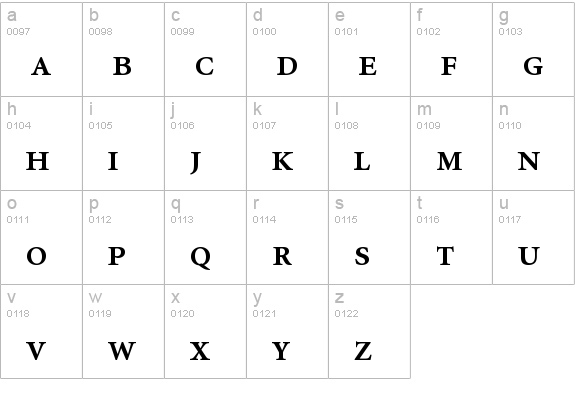
Minion Semibold Expert Font Details
Minion Semibold Expert is a sub-bold, structured variant in the Minion typeface family \xE2\x80\x94 well suited to sub-headlines and emphasised passages.
Minion Semibold Expert font is a versatile and sophisticated typeface designed for those seeking a balance between elegance and readability. With its bold, commanding presence, this font is ideal for headlines, titles, and other prominent text elements that demand attention. The carefully crafted design of Minion Semibold Expert ensures that your message will be conveyed with clarity and impact. What sets Minion Semibold Expert apart is not just its striking appearance, but also its exceptional versatility. Whether you're designing a magazine layout, creating branding materials, or working on a website, this font will elevate your project to the next level. Its expertly balanced weight and proportions make it a go-to choice for designers looking to make a statement. And the best part? Minion Semibold Expert is available for free download at FontsMarket.com. That's right, you can add this premium font to your collection without any cost. Don't miss out on the opportunity to enhance your design projects with the timeless appeal of Minion Semibold Expert. Download it today and see for yourself why this font is a must-have for any design toolkit.